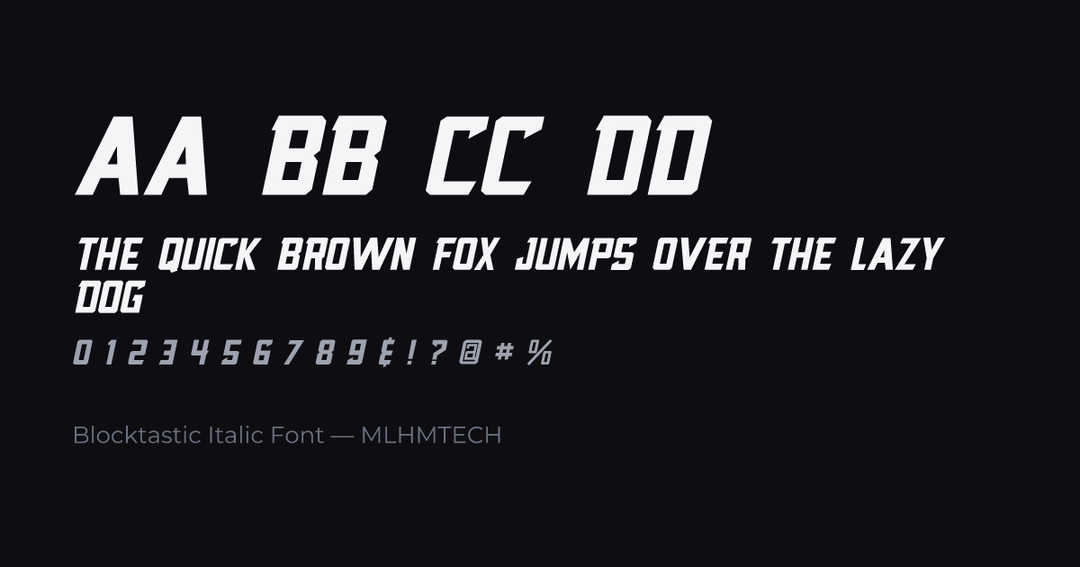
Blocktastic Italic Font
Blocktastic Italic is a bold, geometric display font with a modern edge. Ideal for posters, logos, and video titles.
Blocktastic Italic is a striking display font characterized by its blocky, geometric letterforms and italic slant. The font exudes confidence and modernity, making it perfect for grabbing attention in various design projects.
This font works exceptionally well for headlines, posters, branding, and video titles. Its bold weight ensures high legibility even at small sizes, while the italic angle adds a dynamic feel. Pair it with clean sans-serif fonts for a balanced layout.